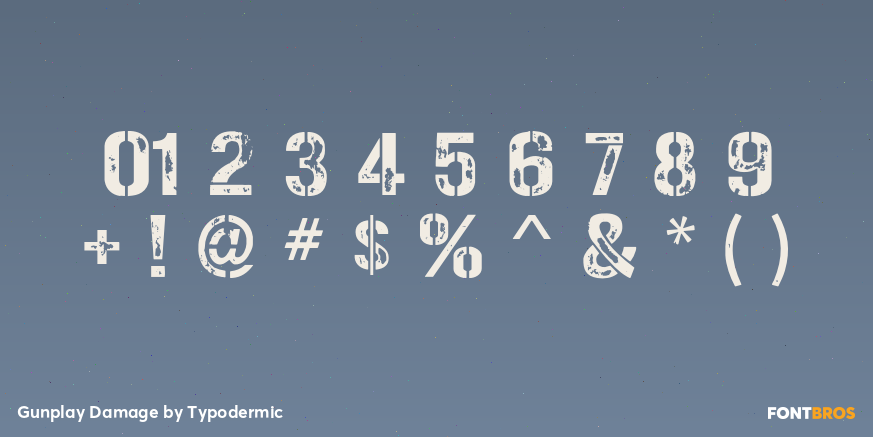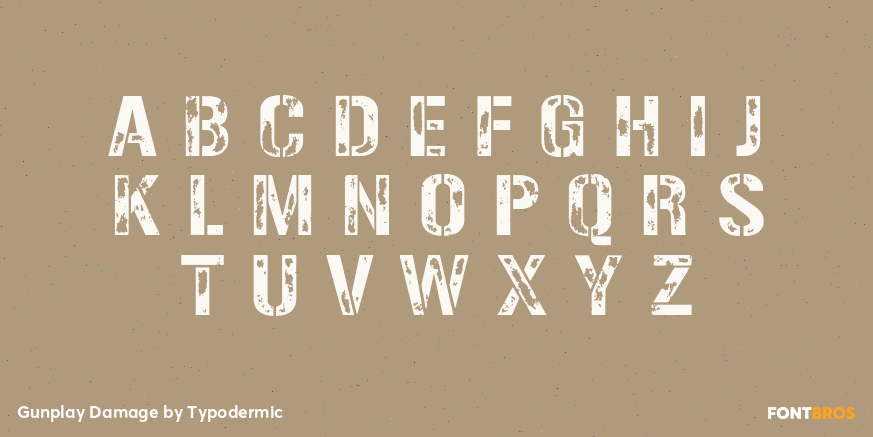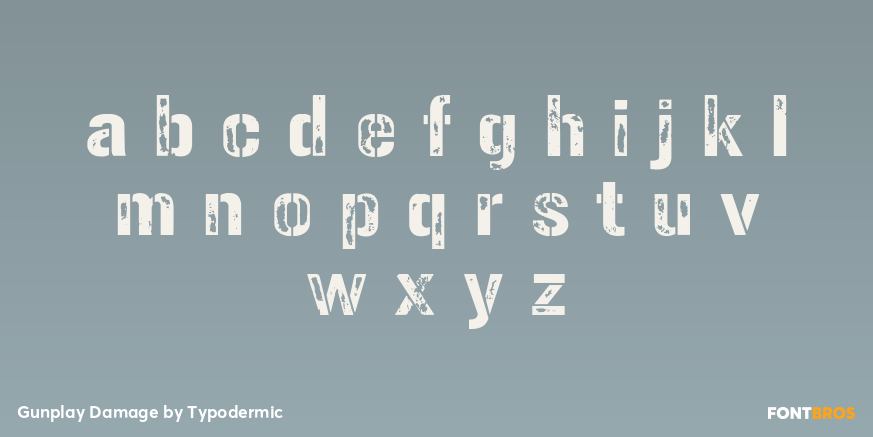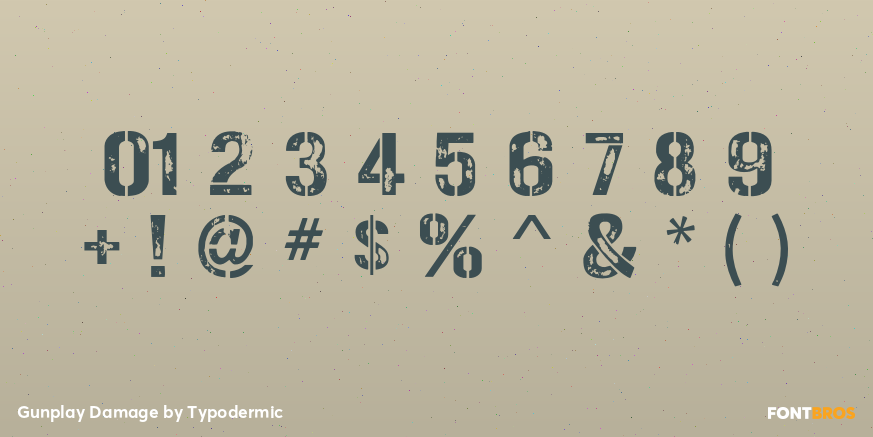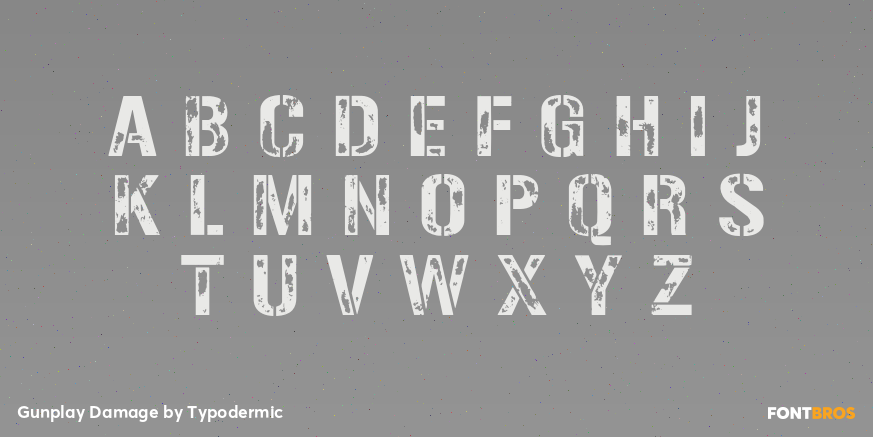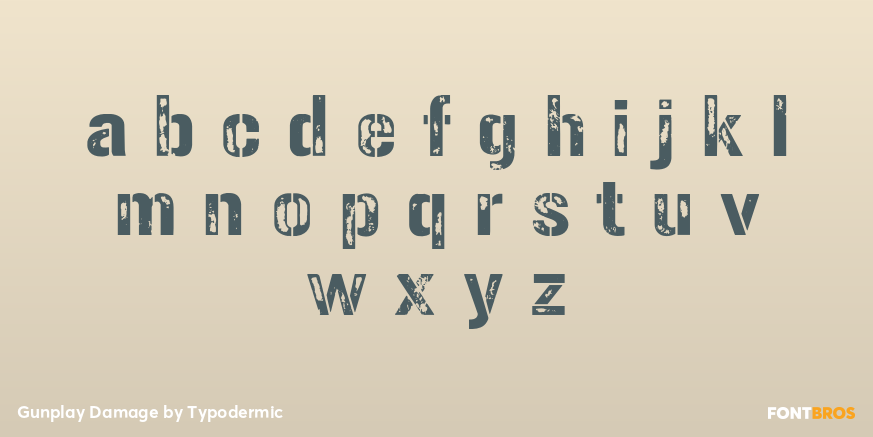
Gunplay Damage
Buy NowGunplay Damage keeps Gunplay’s narrow stencil structure but removes material from the strokes in hard-edged chips and abraded patches. The missing areas resemble wear caused by repeated handling and abrasion, while the underlying stencil bridges remain clear. Unlike Gunplay Spraypaint, its texture reads as damage to an existing surface rather than fresh paint deposition.
This distressed stencil font fits road cases, warehouse and loading-dock graphics, race-shop signage, industrial equipment campaigns, and game environments that need lettering to look scraped or battered. It gives equipment names, zone labels, endurance-racing titles, and short promotional headlines a convincing used-in-the-field character without requiring a separate distress texture.